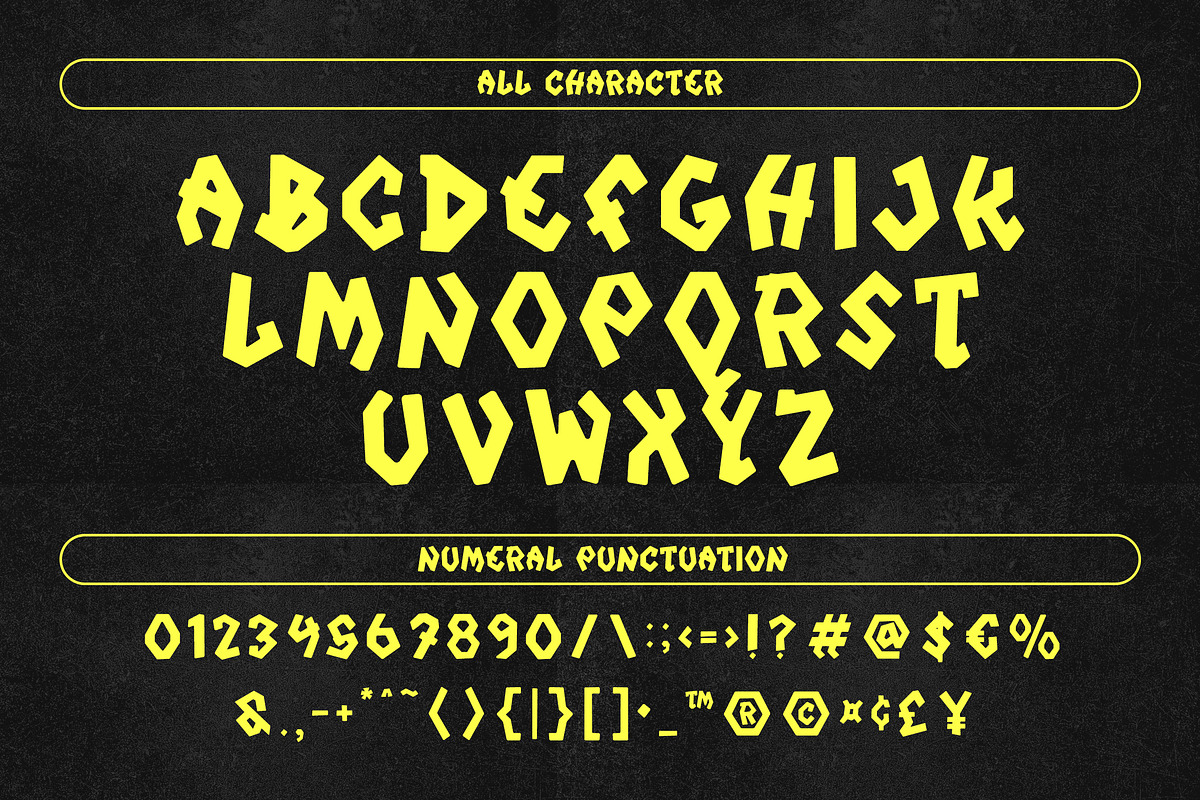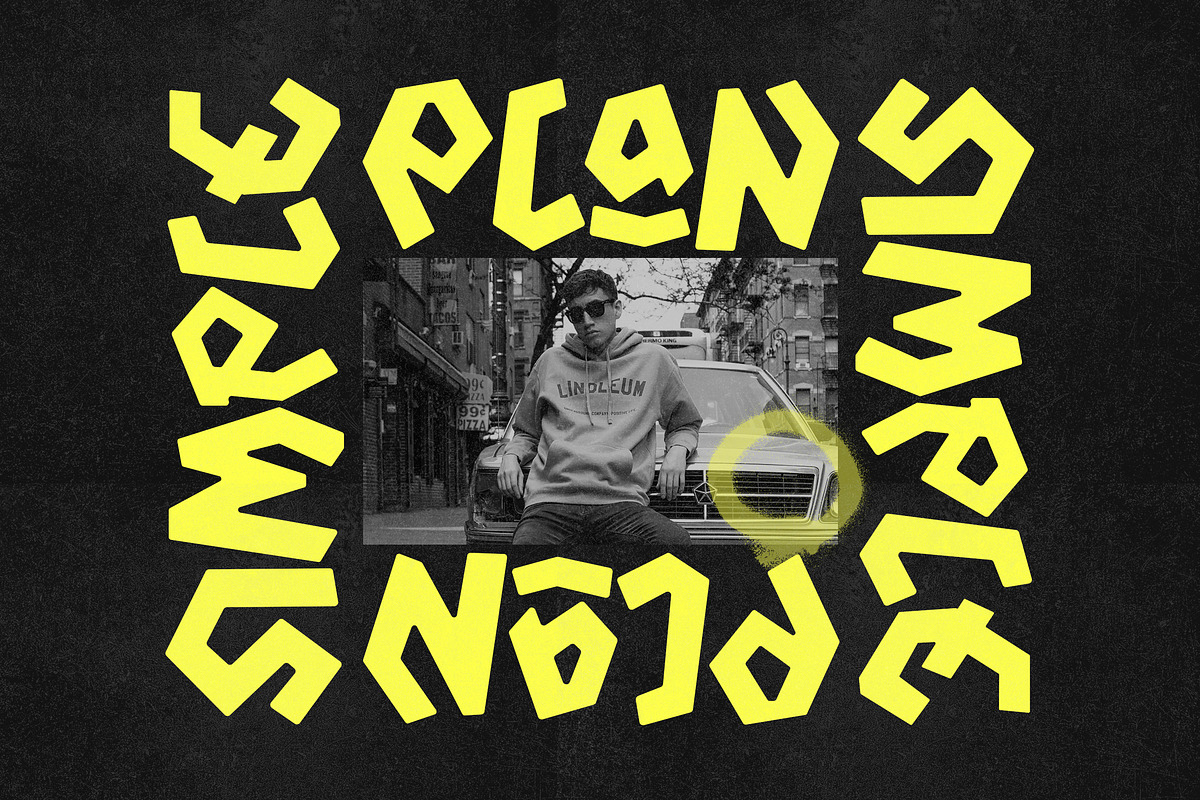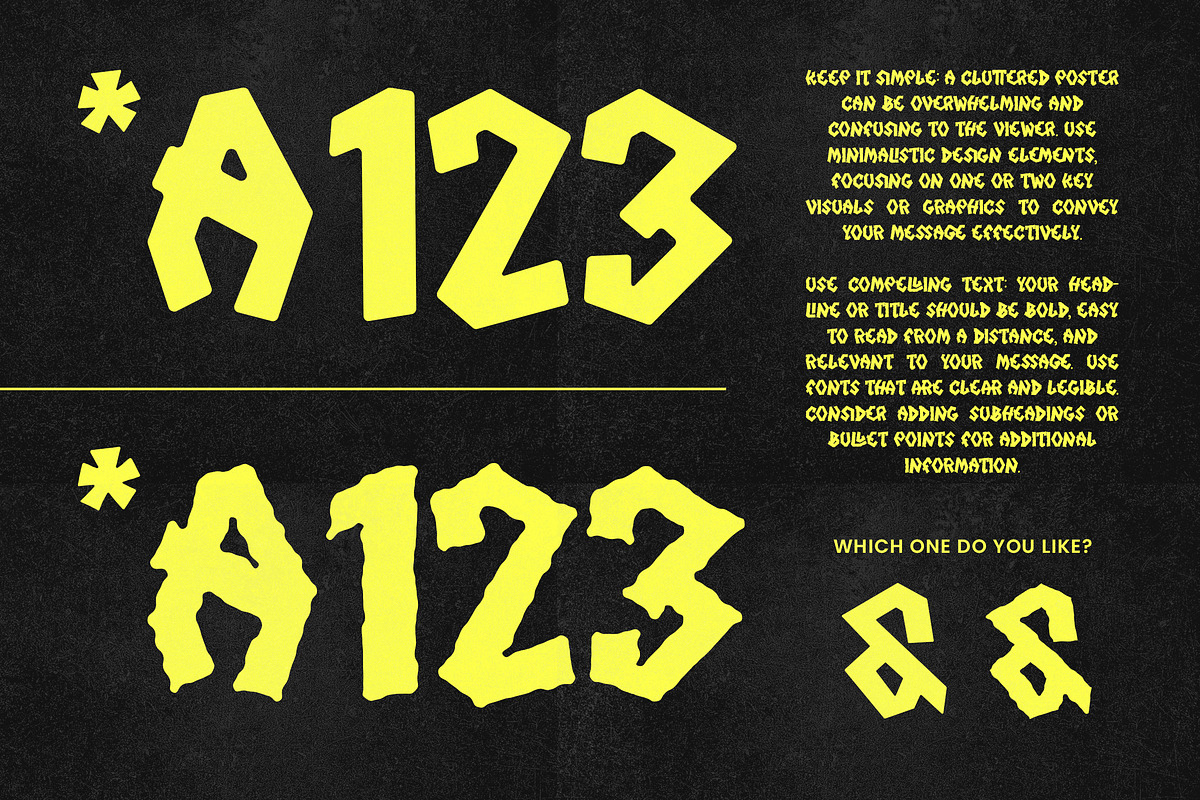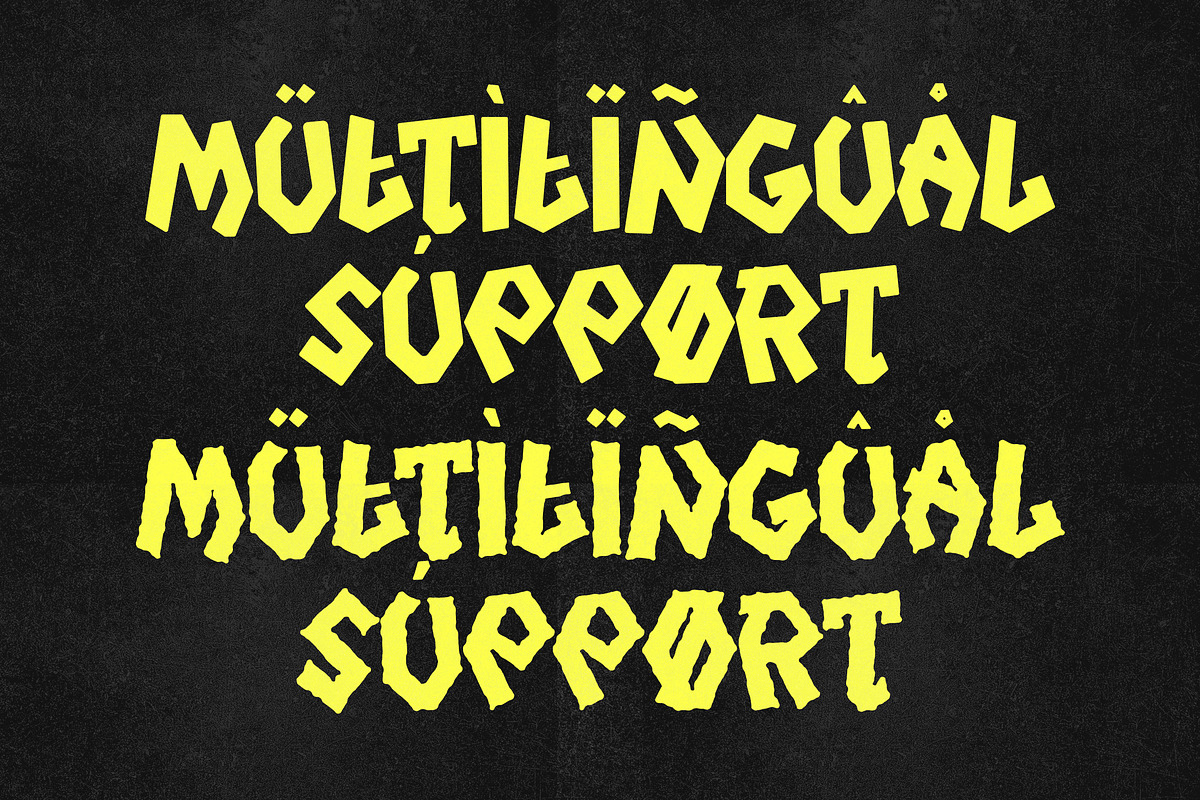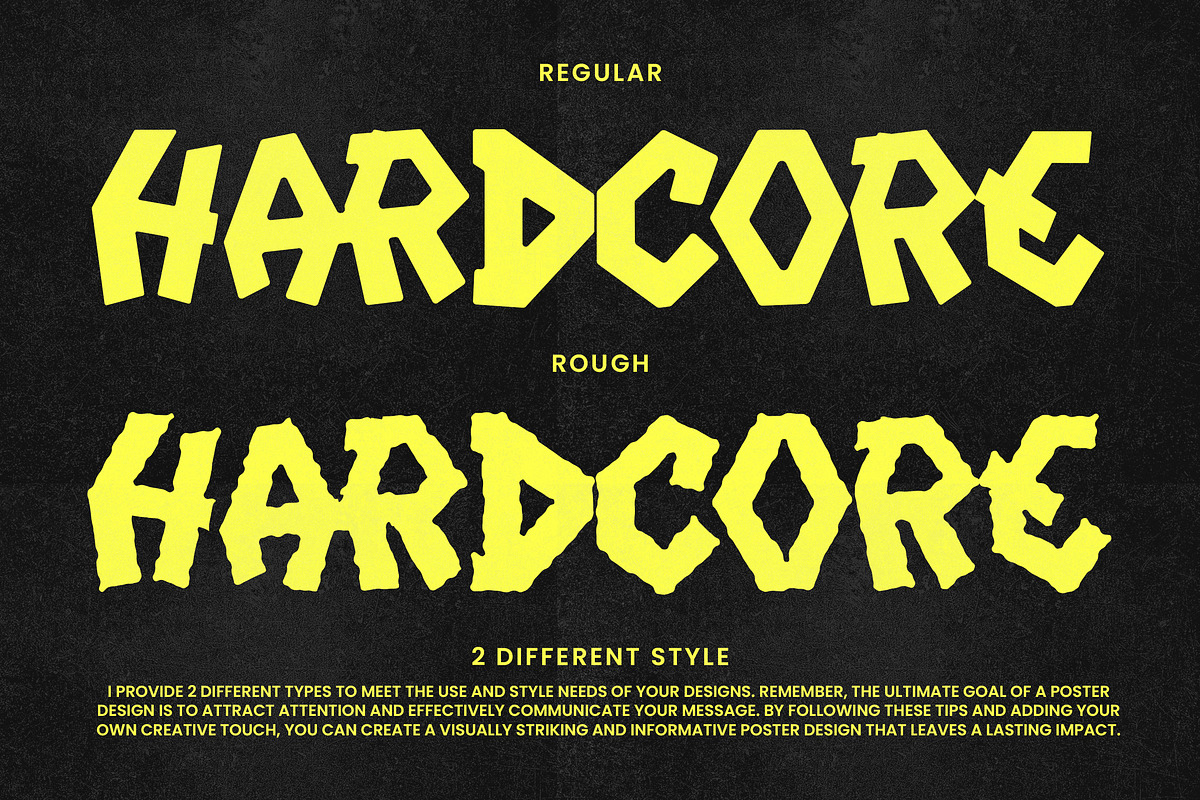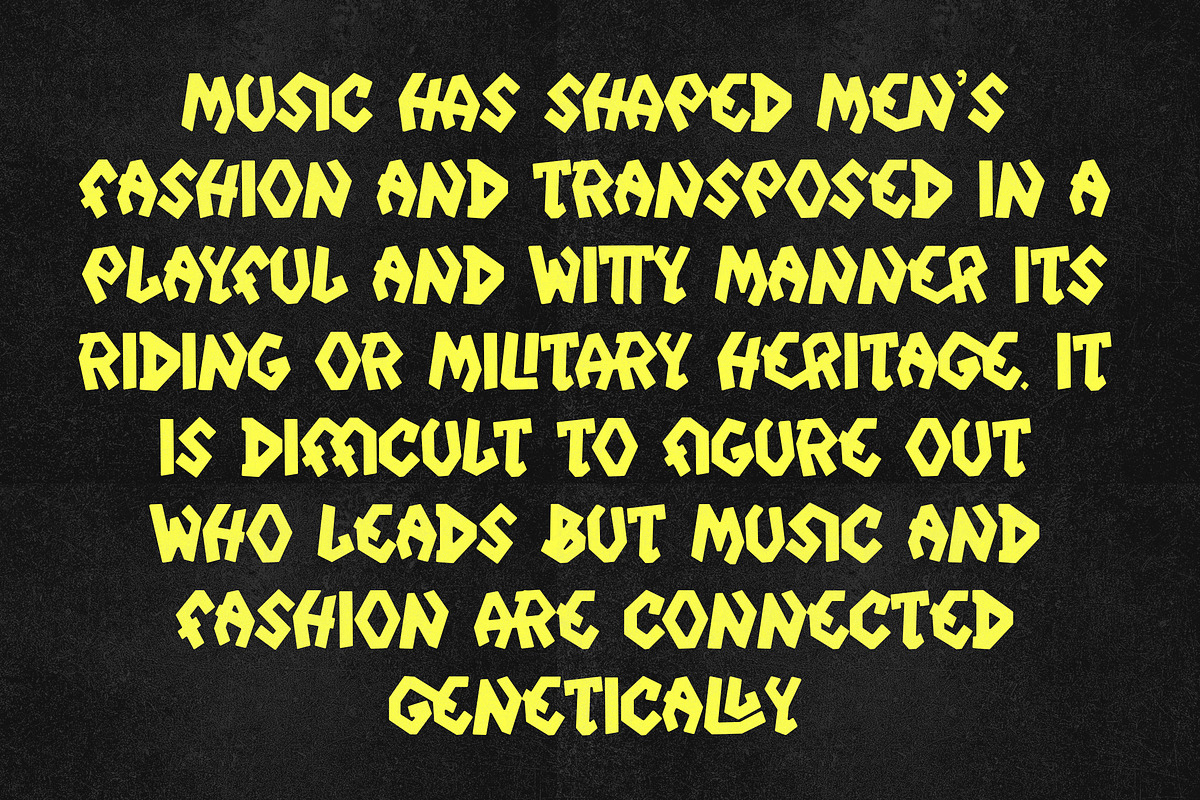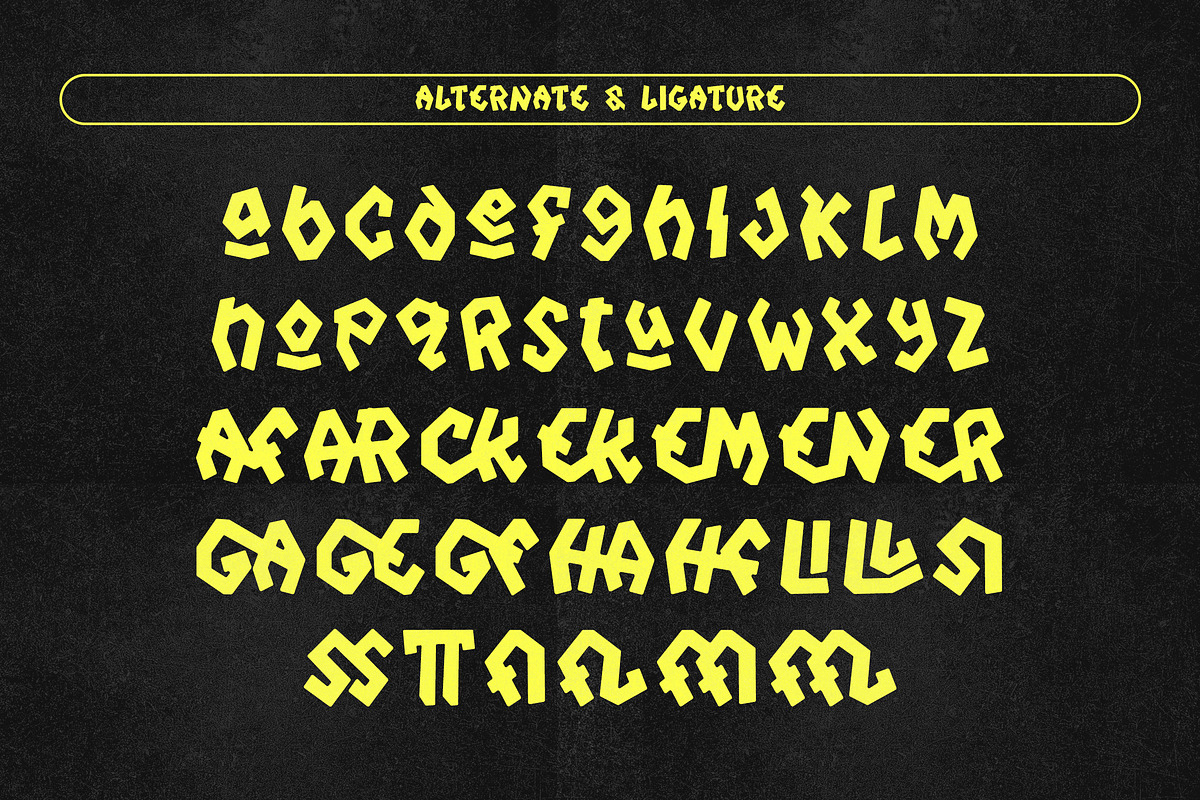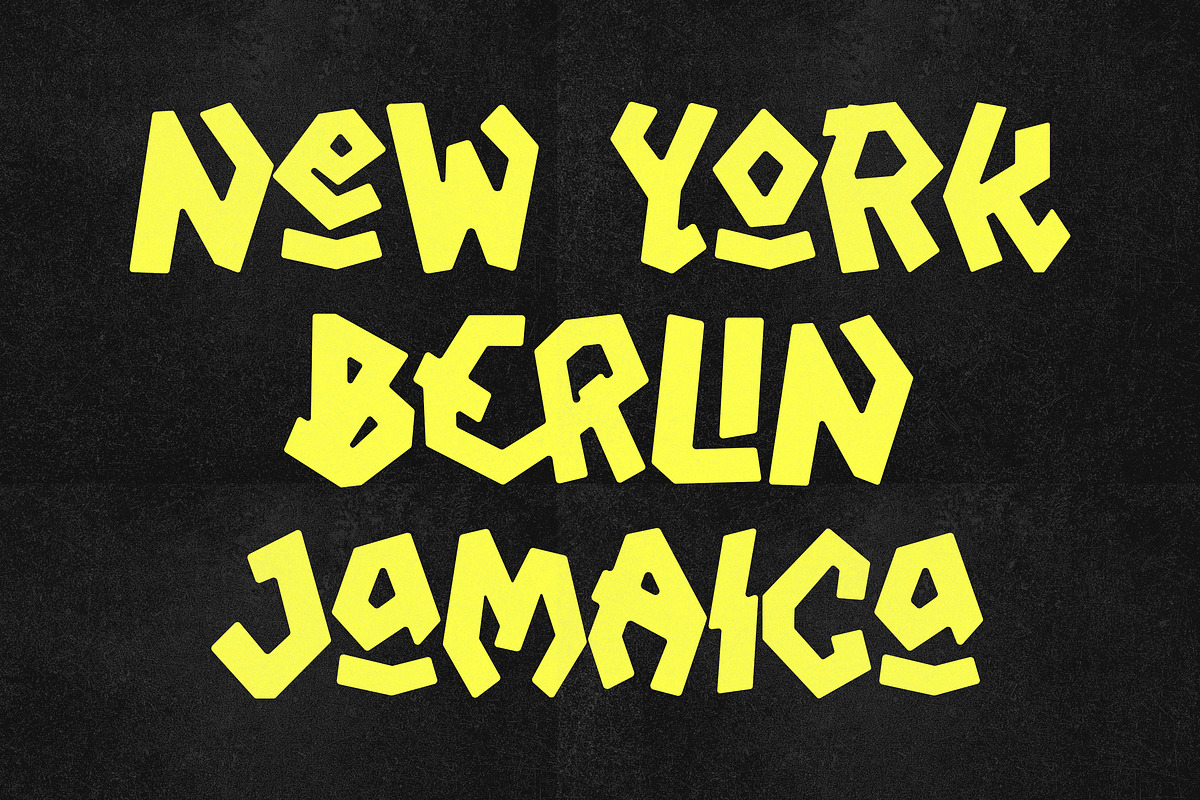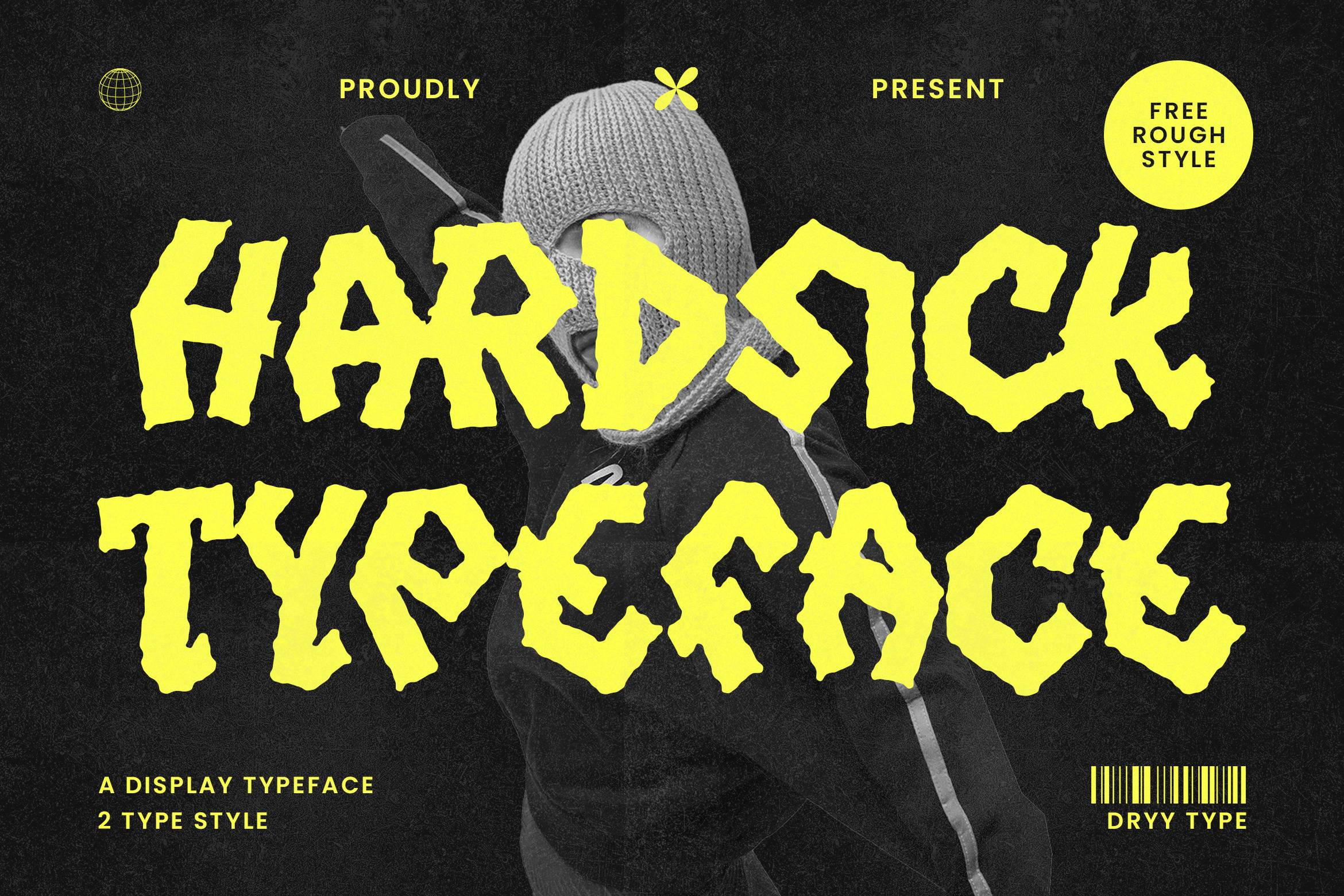
Hardsick - Display Typeface
The Hardsick font is inspired by Streetwear, which is a style of clothing and footwear that originates from urban culture, especially in cities like New York, Los Angeles, and Tokyo. Her trademark is her clothing which is casual, comfortable, and often too big or baggy, incorporating elements from skateboarding, hip-hop, and youth subcultures. This font I created is meaningful & very versatile, it goes well with various designs, elevating them to the highest level. Add this font to your favorite creative ideas and see the results!
Features : Single Case, Numerical, Ligature, Alternate & Multilingual Support There it is! I really hope you enjoy it!!